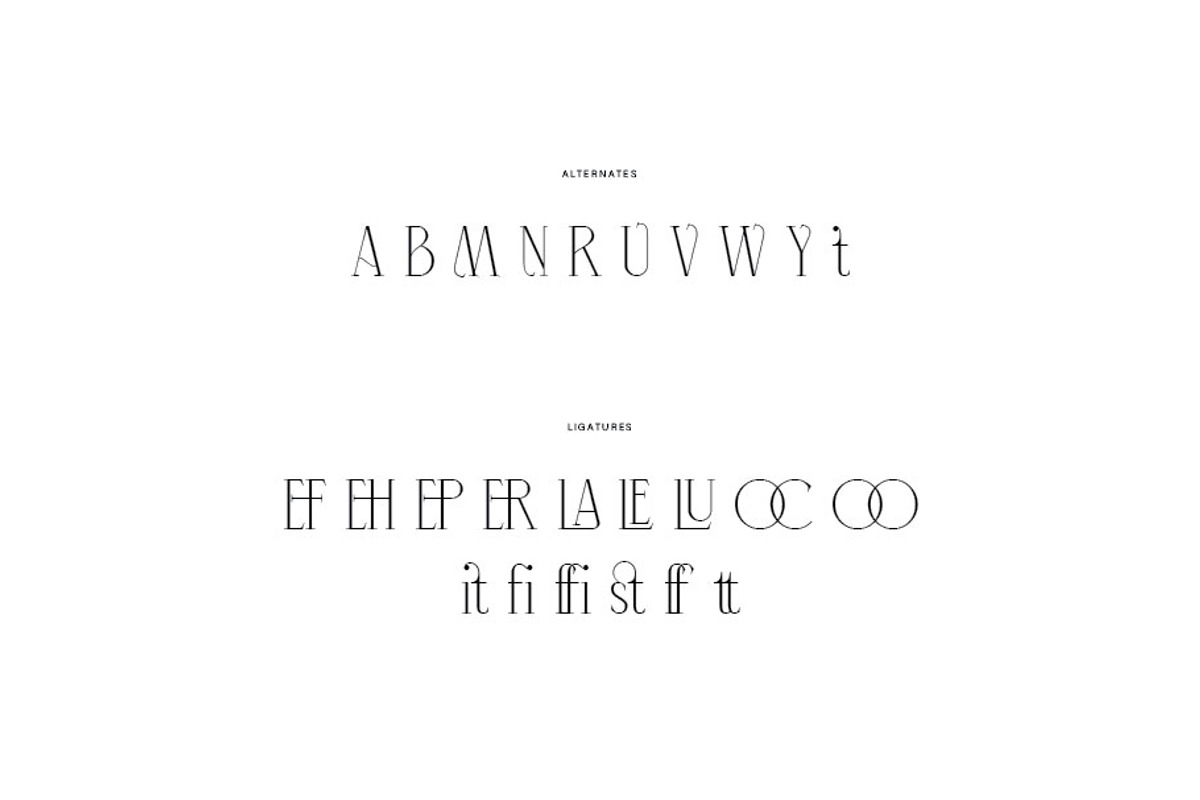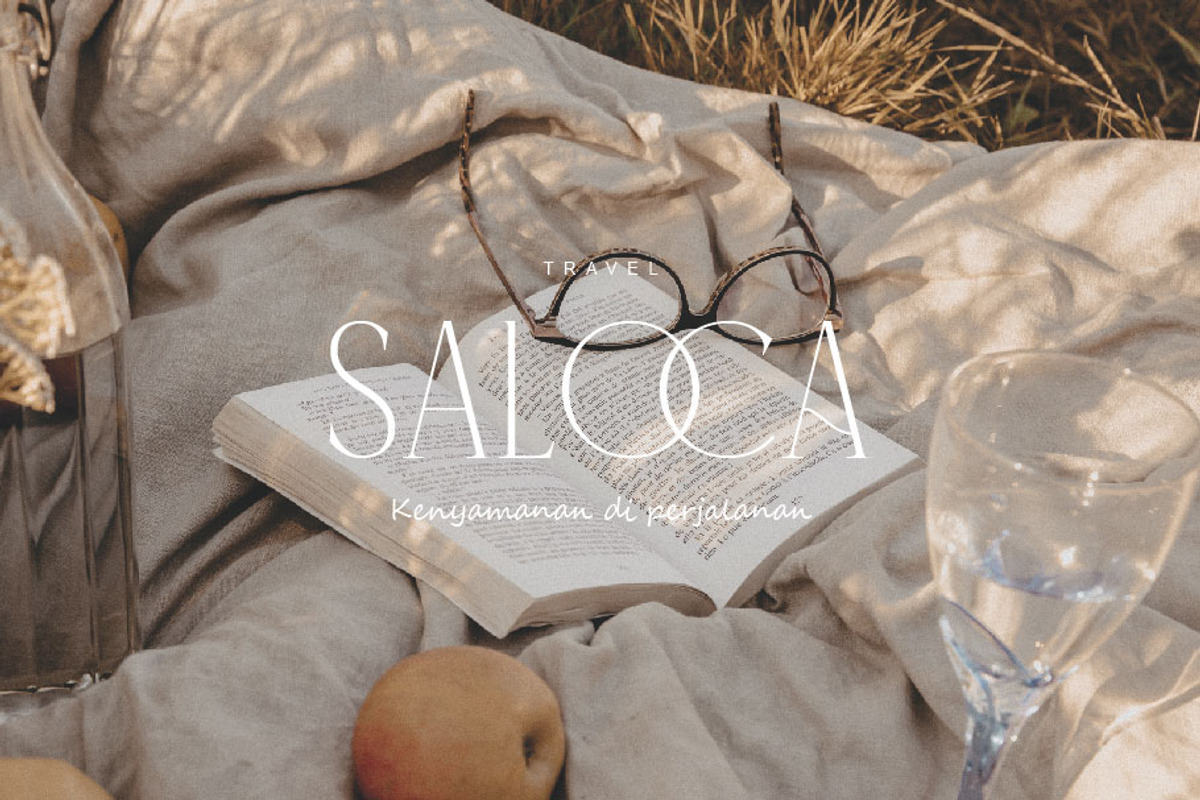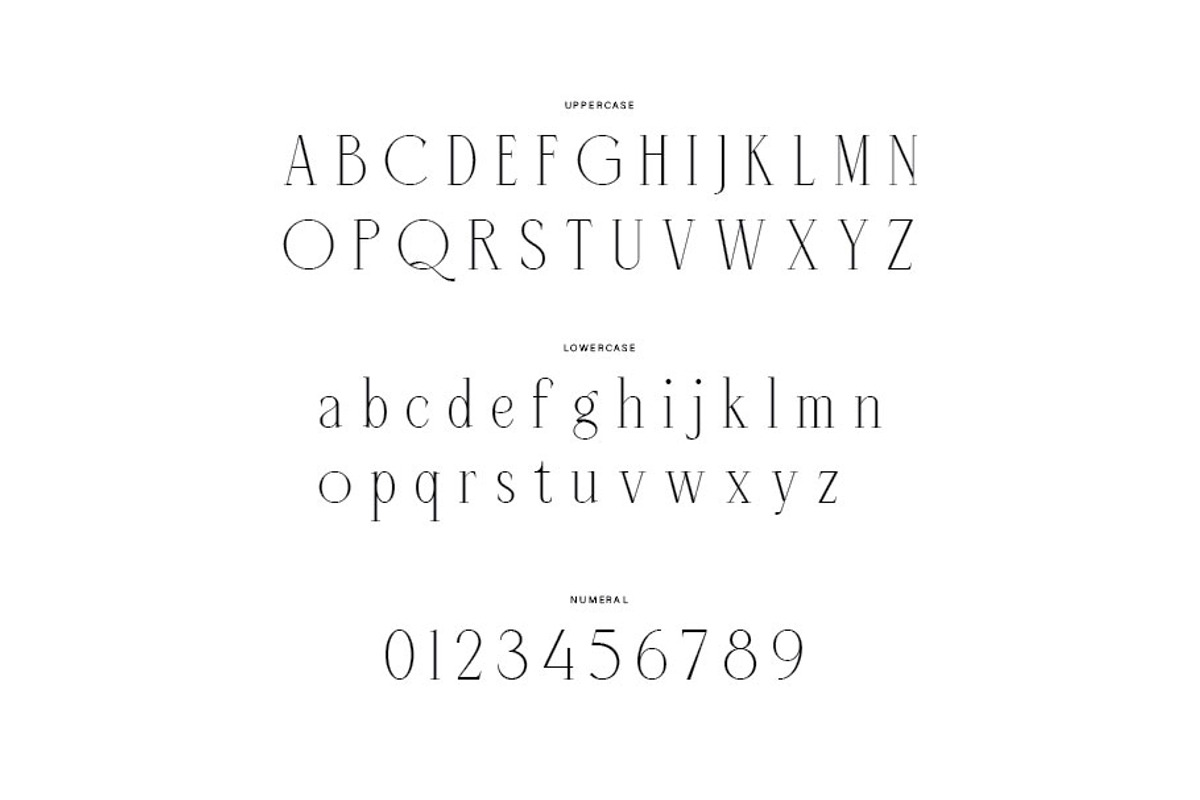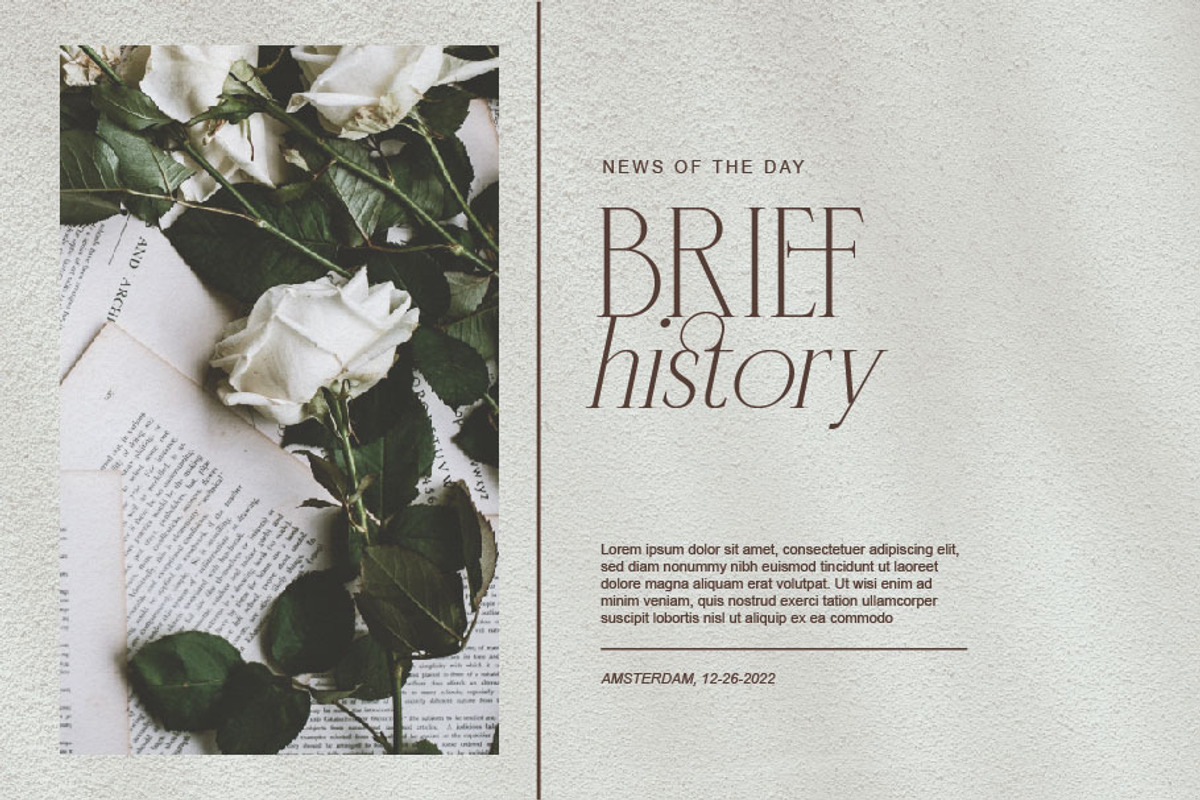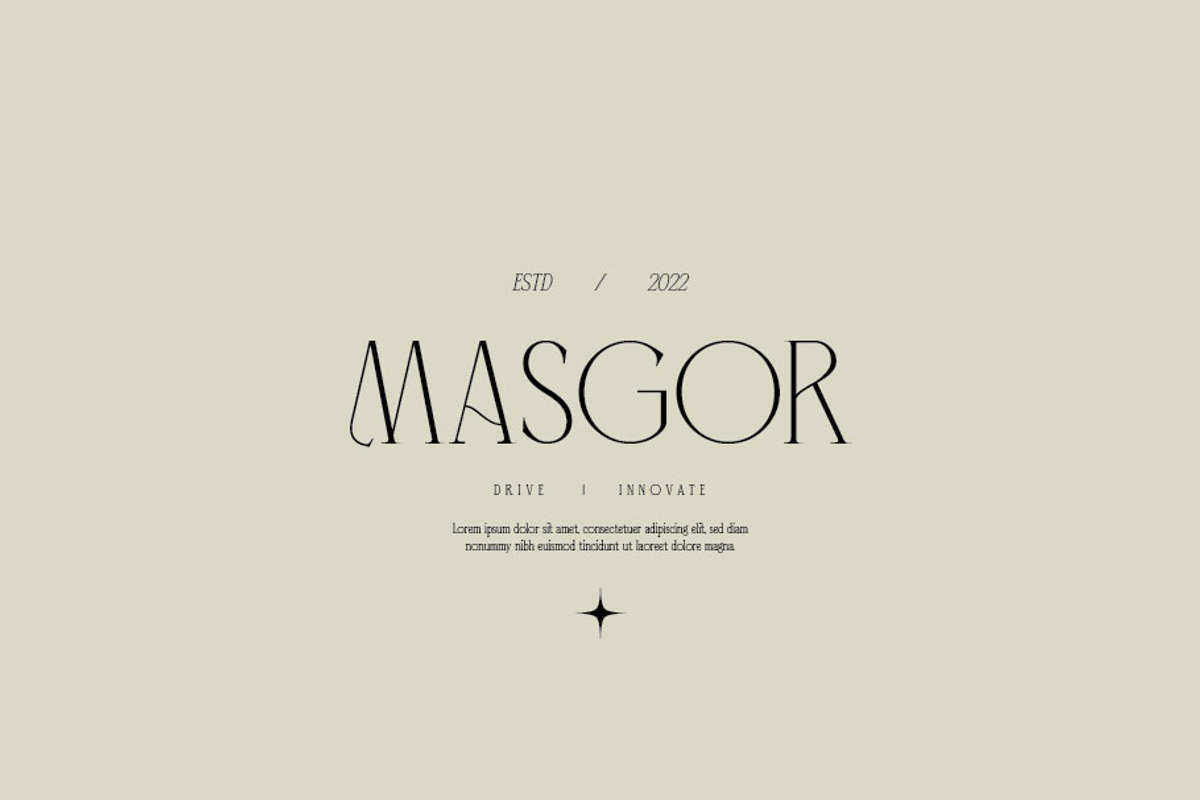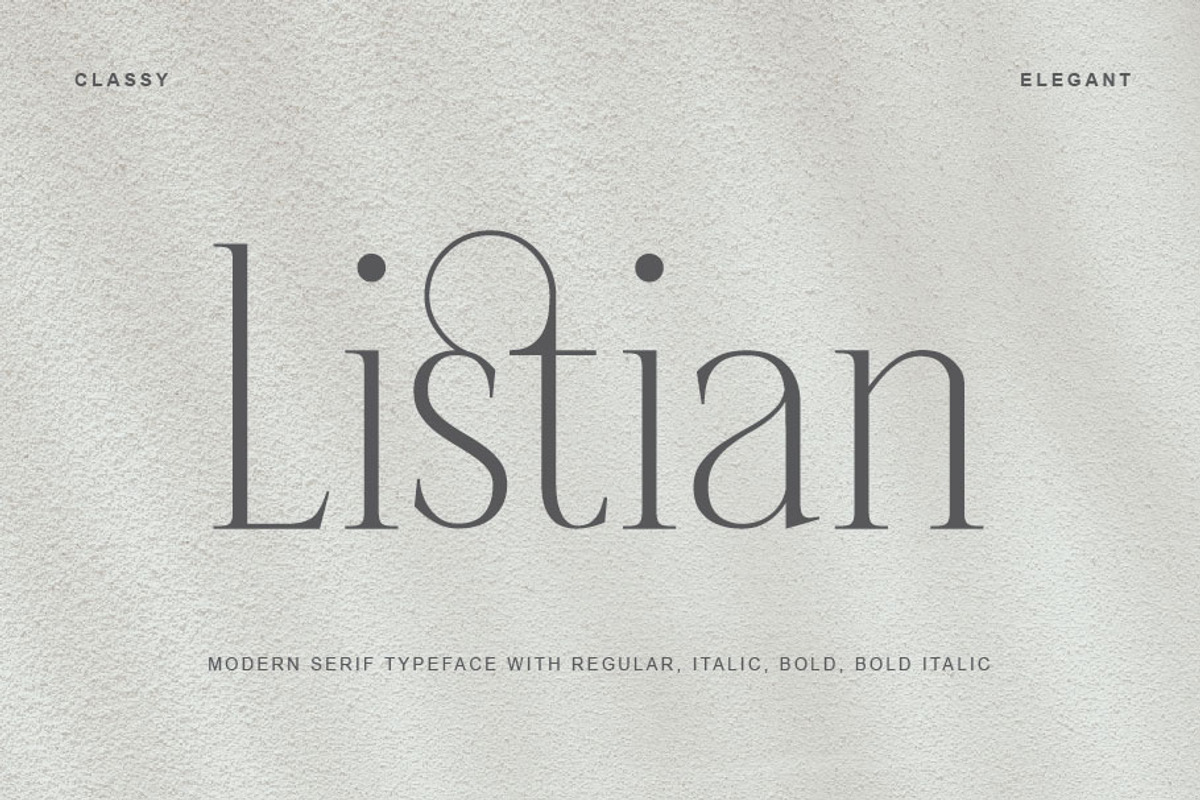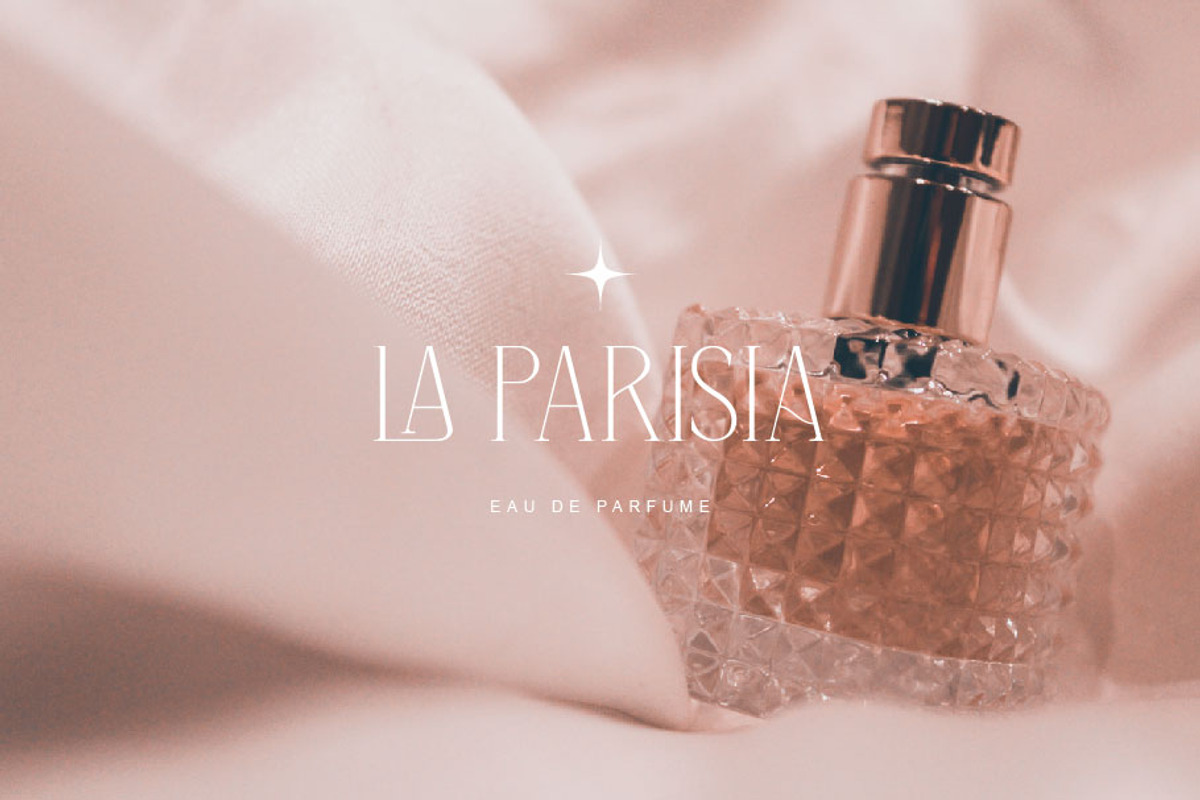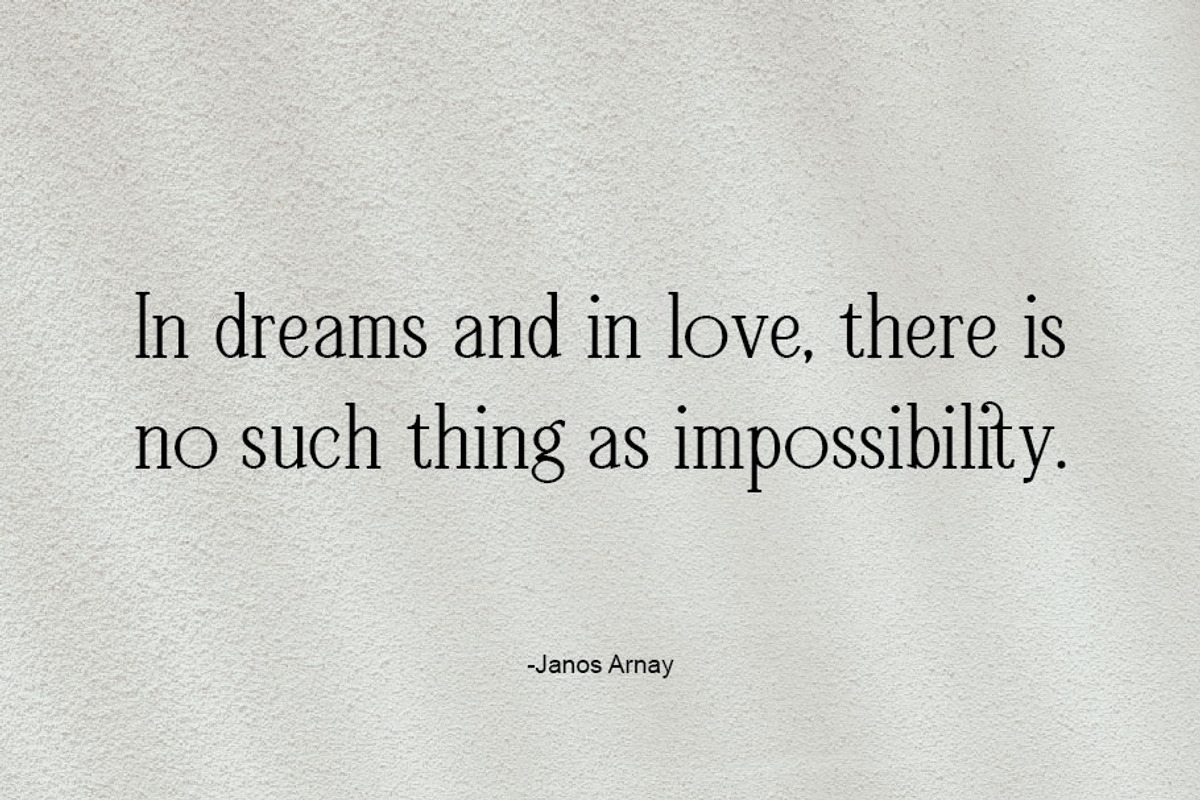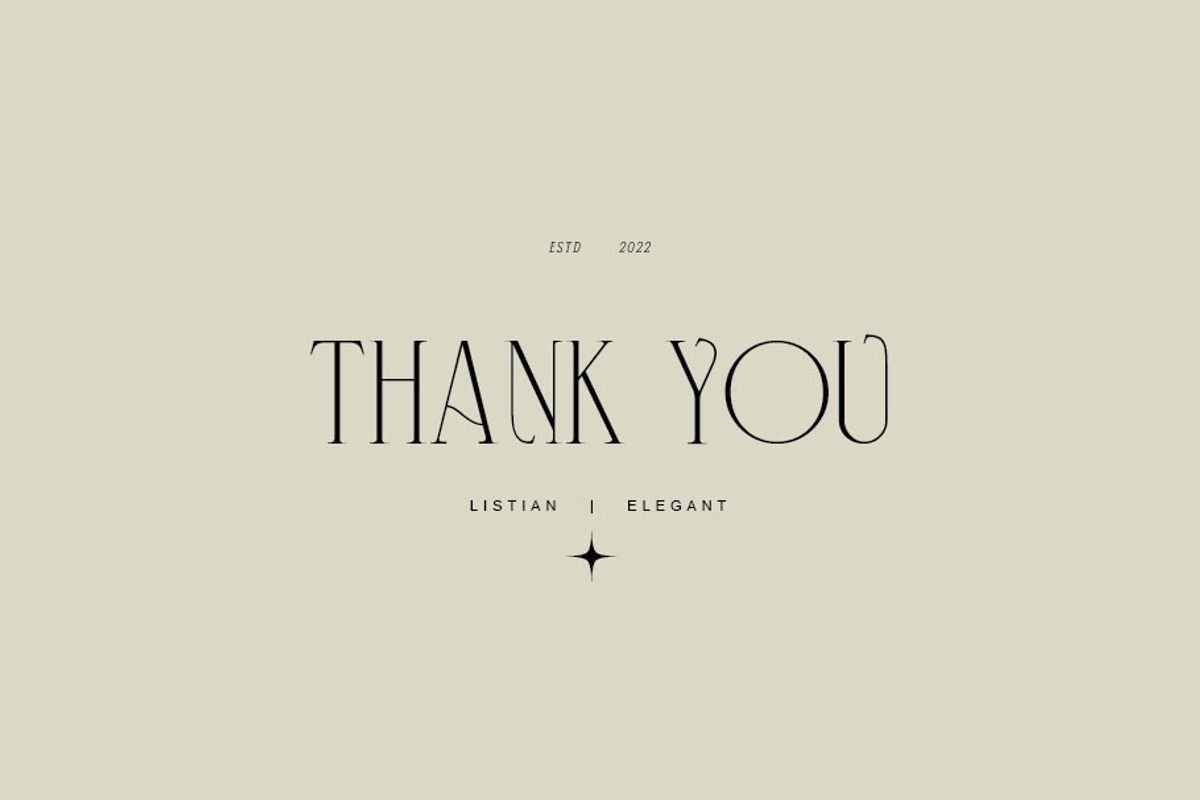
Listian
Hello, I'm back with my best product. This product is a serif font family because there are four style options, namely regular, italic, bold and bold italic. This font is also equipped with several alternates and ligatures so that you have the best choices for your work. This font can be used for wedding invitations, advertisements, web designs, quotes, banners, presentations and more. This font is PUA encoded which means you can access all the glyphs and ligatures with ease!